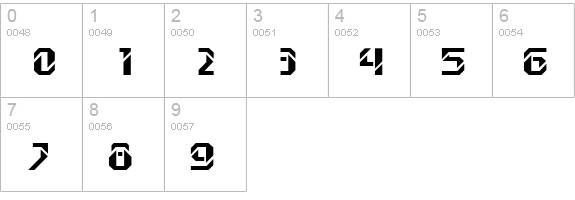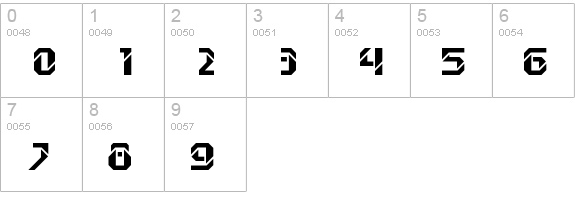
Hansson Stencil MN Bold Font Details
Hansson Stencil MN Bold is a strong, high-contrast variant in the Hansson typeface family \xE2\x80\x94 well suited to headlines, attention-grabbing titles, and strong calls-to-action.
Hansson Stencil MN Bold font is a modern and versatile typeface that exudes confidence and strength. Its bold and striking design makes it perfect for headlines, titles, and branding materials. The stencil effect adds a unique touch to any design, giving it a contemporary and edgy look. What makes this font even more appealing is that it is available for free download at FontsMarket.com. This means you can easily access and use this powerful typeface in your projects without any cost. Whether you're designing posters, logos, or websites, Hansson Stencil MN Bold font will make a bold statement and leave a lasting impression. Download it now and elevate your designs with this eye-catching and impactful font.